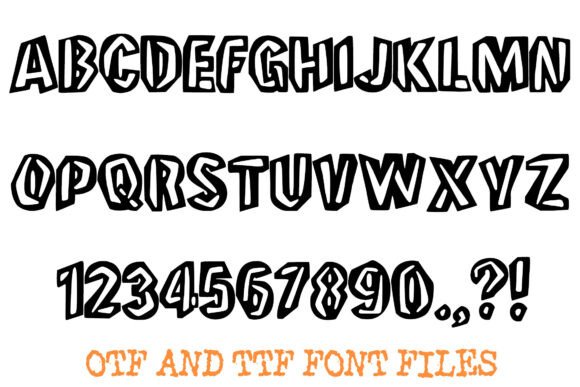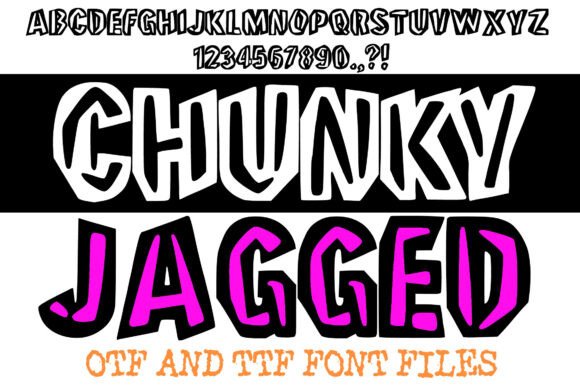
Unleash Your Creativity with Chunky Jagged Font: The Ultimate Typeface for Edgy Designs
In the world of typography, fonts play a crucial role in conveying the tone and personality of a design. If you’re looking for a typeface that exudes raw energy, defiance, and an unapologetic edge, look no further than Chunky Jagged Font. This powerfully expressive font is designed to command attention, featuring thick, assertive letterforms with sharp, uneven, and deliberately irregular edges.
The Power of Chunky Jagged Font
Chunky Jagged Font is more than just a font; it’s a visual roar that can inject an immediate, impactful, and rebellious attitude into any creative project. Each character is crafted with a robust, block-like structure whose outlines are sharply fragmented and angular, creating a distinctive, gritty, and eye-catching appearance. This font is ideal for designers and crafters who want to add a touch of edginess to their work, whether it’s for a punk rock band, an urban-themed poster, or a distressed graphic design.
The versatility of Chunky Jagged Font is one of its most significant advantages. It’s perfect for crafting impactful headlines, edgy logos, urban-themed posters, rock band merchandise, protest signage, or any project that needs to convey a sense of strength, defiance, or raw, unrefined energy. Whether you’re aiming for a punk aesthetic, an industrial vibe, a street art feel, or a distressed graphic look, this font delivers with uncompromising style.
Key Features of Chunky Jagged Font
- Thick, assertive letterforms: Chunky Jagged Font features bold, chunky letterforms that demand attention.
- Sharp, uneven edges: The font’s deliberately irregular edges add a touch of raw energy and edginess to any design.
- Robust, block-like structure: Each character is crafted with a sturdy, block-like structure that exudes strength and confidence.
- Distinctive, gritty appearance: The font’s sharply fragmented and angular outlines create a unique, eye-catching appearance that’s sure to stand out.
Why Choose Chunky Jagged Font?
With so many fonts available, why choose Chunky Jagged Font? Here are just a few reasons:
- Uncompromising style: This font delivers a bold, unapologetic look that’s perfect for designers who want to make a statement.
- Instant impact: Chunky Jagged Font is designed to grab attention and make a lasting impression.
- Versatility: This font can be used for a wide range of projects, from posters and logos to merchandise and signage.
Tips for Using Chunky Jagged Font
To get the most out of Chunky Jagged Font, here are a few tips:
- Use it sparingly: Due to its bold, attention-grabbing nature, it’s best to use Chunky Jagged Font sparingly to avoid overwhelming the design.
- Pair it with contrasting fonts: Combine Chunky Jagged Font with smoother, more elegant fonts to create visual interest and contrast.
- Experiment with colors: Try pairing Chunky Jagged Font with bold, bright colors to amplify its impact.
Chunky Jagged Font is a powerful, expressive typeface that’s perfect for designers and crafters who want to add a touch of edginess to their work. With its thick, assertive letterforms, sharp, uneven edges, and robust, block-like structure, this font is sure to command attention and make a lasting impression. Whether you’re creating a punk rock poster, an urban-themed design, or a distressed graphic, Chunky Jagged Font is the ultimate choice for adding a raw, unapologetic edge to your designs.